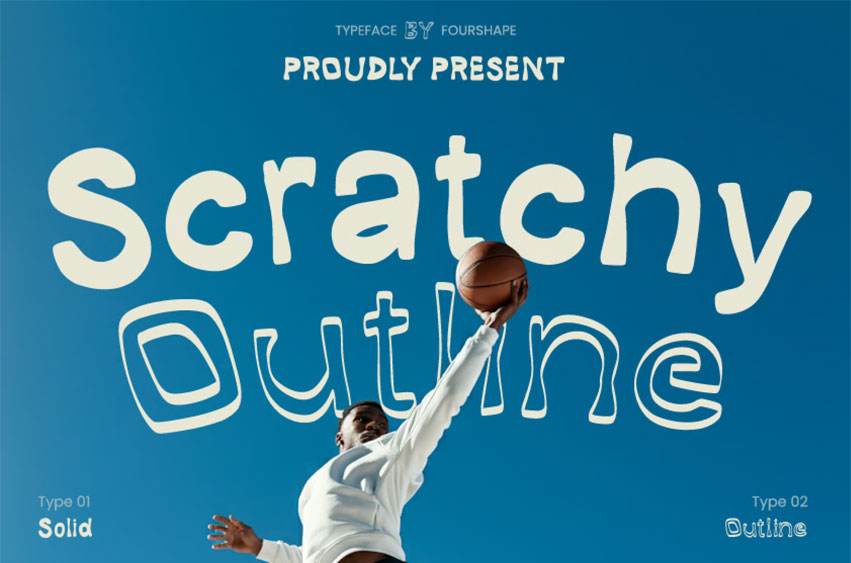
Scratchy Duo Font Pairing Typeface Font Bold and quirky display font that brings a hand-drawn, youthful energy to your designs. With its imperfect strokes and chunky letterforms, this font feels fun, casual, and full of character. Perfect for fun events, children’s books, posters, event branding, social media graphics, and playful packaging, Scratchy adds a lively touch that stands out.
- 2 Font Type (Solid and Outline)
- Uppercase & Lowercase
- Numbering & Punctuation